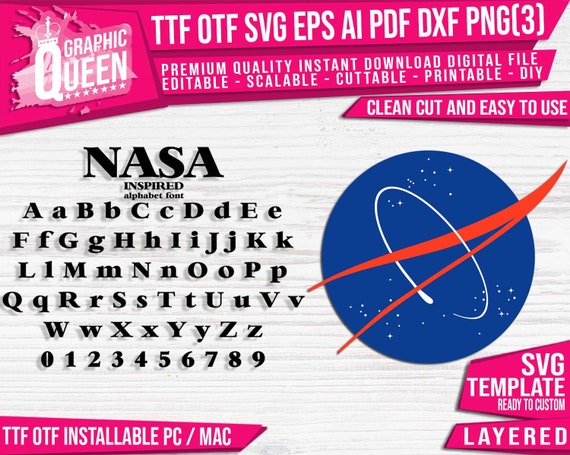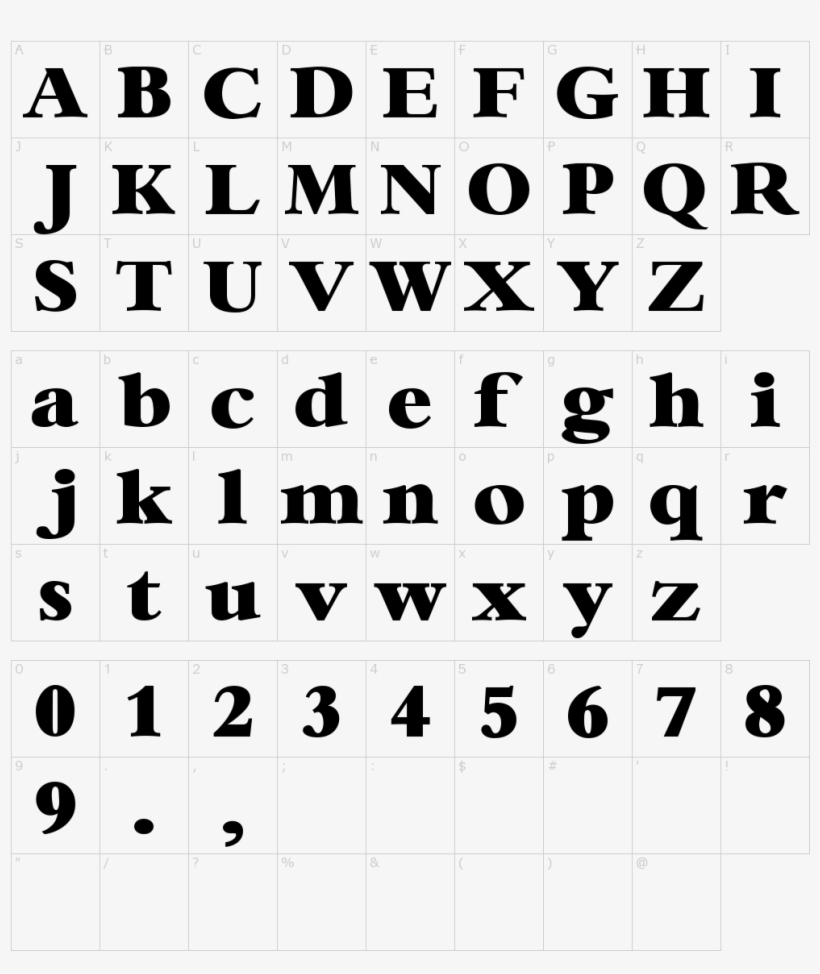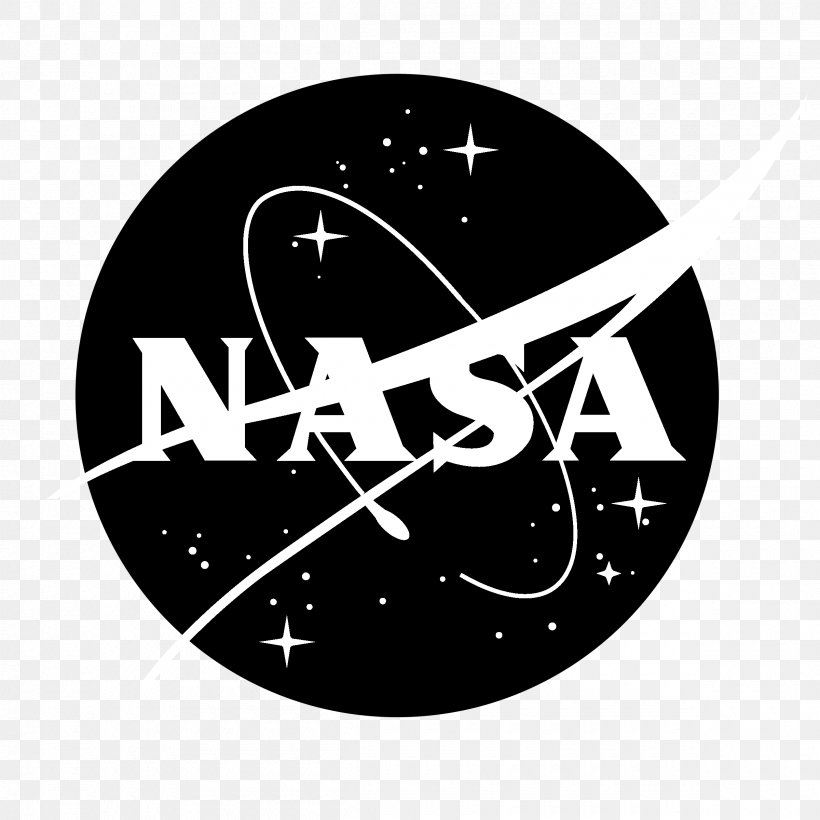
The font used for logo is Space Meatball Font. It is one of the most ubiquitous typefaces in the world used commonly at large sizes for signs titles and logos.
Nasa Logo Evolution Meatball Vs Worm Logo Design Love
A font called Space Meatball is based on James Modarellis NASA logo design.
Logo nasa font. Creating a word-based logo isnt as simple as using a fancy font. Some of the most memorable logos are nothing but text - CNN Disney and the infamous NASA worm. Its the closet match Ive found.
Nasa font download Nasa font. Logos with words make it easier and quicker to get the brand name across and add another element to your logo. The Helvetica typeface has been used by NASA extensively for decades from the space shuttle to signage and printouts.
NASA worm A fonts Related tags nasa worm a futuristic techno sans-serif retro magazine logo geometric decorative art deco transport science fiction rounded news monoline minimal fast cosmetics cool computer clean 1970s wii wide video. One is the logotype with stylized red curved text also known as the worm and the other is the NASA insignia also known as the meatball featuring a sphere with a red chevron and the NASA lettering over it. The NASA logo has two main designs.
Novarese is a well-balanced and relatively wide text font with classic forms. Digital file type s. One is the logotype with stylized pink curved textual content also known as the worm because the other is the NASA insignia One is the logotype with stylized pink curved textual content also known as the worm because the other is the NASA insignia.
Designers are limited with how much they can modify letters until they. Create your logo design based on best fonts by using our easy to use logo and font tool logo font font logo. Nasalization is an ultramodern sans serif typeface with a nod to the 1975 NASA logo.